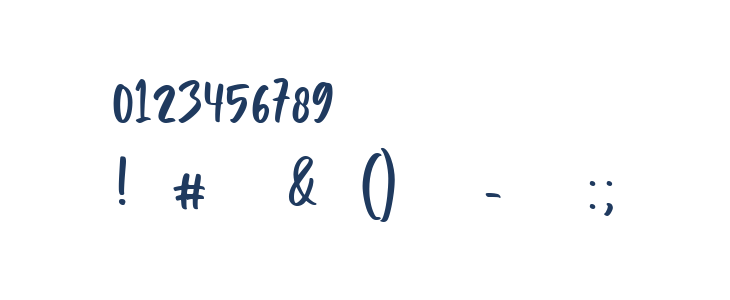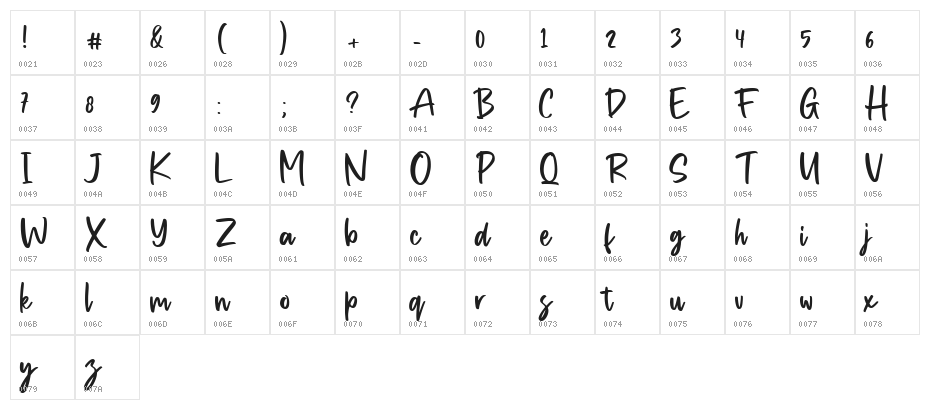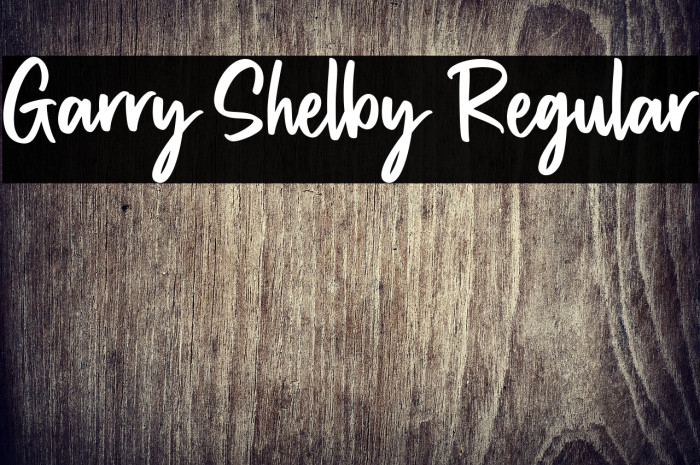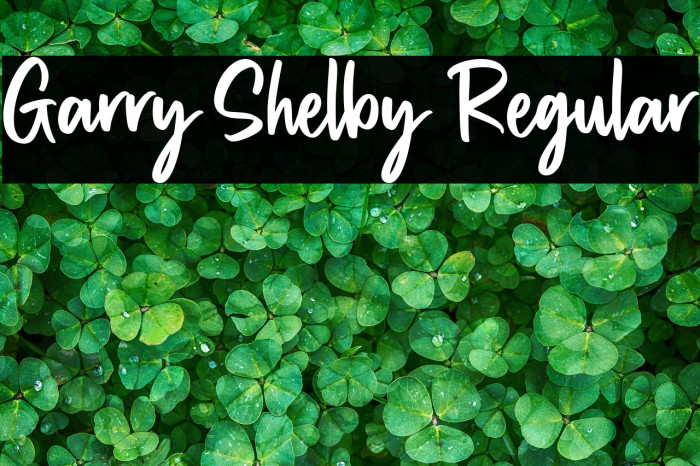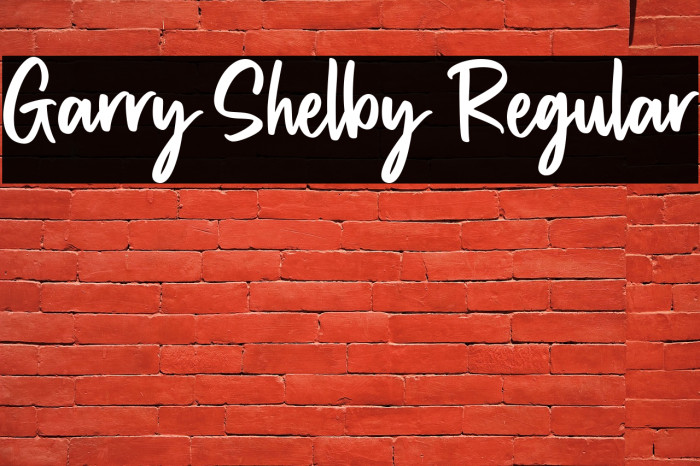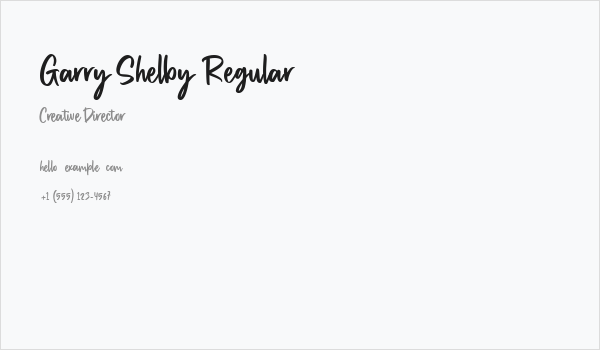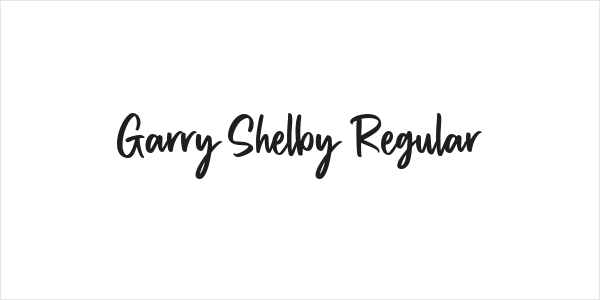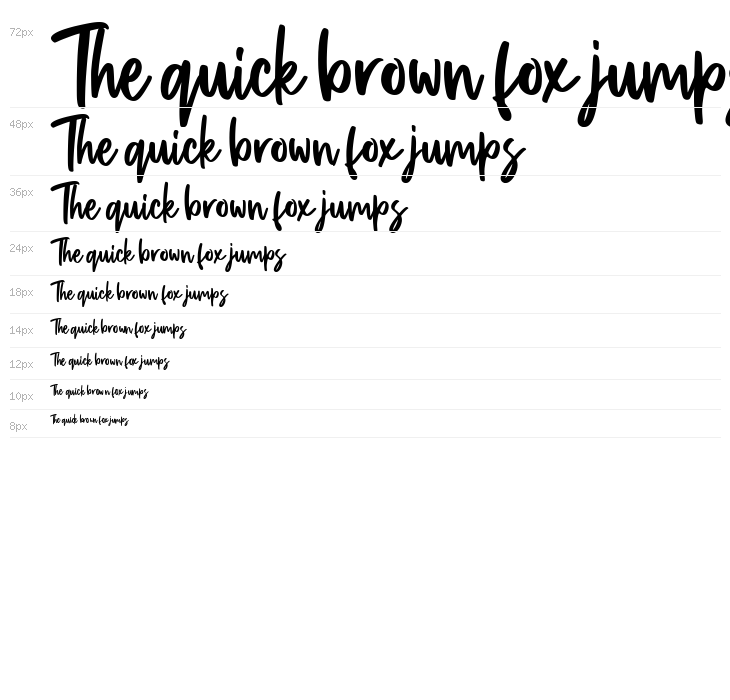
Garry Shelby Regular Font
Garry Shelby Regular Description
This font features a lively and expressive handwritten style, characterized by its bold and fluid strokes. The letters are slightly slanted, giving a dynamic and casual appearance. The uppercase and lowercase letters maintain a consistent flow, with some letters having unique loops and curves that add personality. The numerals are clear and legible, matching the playful aesthetic of the alphabet. Special characters are included, complementing the overall design with their own distinctive flair. This font is perfect for projects that require a personal touch or a creative edge.
| Proposed Projects | Ideal for greeting cards, invitations, branding, social media graphics, and creative projects that benefit from a personal and artistic touch. |